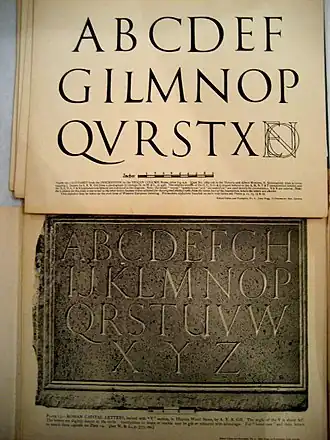
Trajan (typeface)
Category | Serif |
Classification | Incised |
Designer(s) | Carol Twombly and Robert Slimbach[1] |
Foundry | Adobe Type |
Date released | 1989[1] |
Trajan is a serif typeface designed in 1989 by Carol Twombly for Adobe.[2][1]
The design is based on the letterforms of capitalis monumentalis or Roman square capitals, as used for the inscription at the base of Trajan's Column, hence the name. Trajan is an all-capitals typeface, as the Romans did not use lowercase letters on monumental inscriptions. Twombly created the design taking inspiration from a full-size picture of a rubbing of the inscription.[3] It is well known for appearing on many film posters.[4]
Background
The capitals on Trajan's Column have long been an inspiration to many artists and students of lettering.[5][6] The calligrapher and type designer Edward Johnston in his book Writing & Illuminating & Lettering (1906) wrote that "the Roman capitals have held the supreme place among letters for readableness and beauty. They are the best forms for the grandest and most important inscriptions."[7][8] Trajan letterforms were used for many years for signs in British public buildings, including government offices.[9][10]
Twombly's translation of the Trajan inscription into type is quite crisp and faithful. Many looser interpretations (often with an invented lowercase) predate Twombly's, particularly Emil Rudolf Weiss' "Weiss" of 1926, Frederic Goudy's Forum Title, Hadriano and "Goudy Trajan", and Diotima by Gudrun Zapf-von Hesse, while Warren Chappell's "Trajanus" of 1939, while having similar forms for capitals has a markedly medieval lowercase.[11] Many other examples of lettering and typefaces are based on Roman capitals, for instance lettering made under the influence of the Arts and Crafts movement in the nineteenth and twentieth centuries.[6] Alastair Johnston's 1990 review of Trajan noted this heritage, saying that it "outdoes anything old Fred Goudy ever produced."[12]
Trajan was designed for display instead of printed text – specifically for use in large sizes.[1]
Twombly's digitisation of Trajan has become very popular, as seen in its widespread presence on movie posters, television shows, and book covers.[4] A bold weight was added to Trajan when it was made digital.[1]
Twombly retired from Adobe and type design in 1999,[13] but Adobe has continued to release versions in consultation with her. Trajan Pro was the initial OpenType version, which added central European language support and added small caps in the lowercase slots. In 2012 the existing OpenType version was significantly revised as "Trajan Pro 3," with Robert Slimbach adding four additional weights as well as Cyrillic and Greek glyphs.[2][1][14] Adobe has also released a "Trajan Sans" companion face, forming a font superfamily.[15] Neither version supports the archaic Latin vowels long I or apex-V.